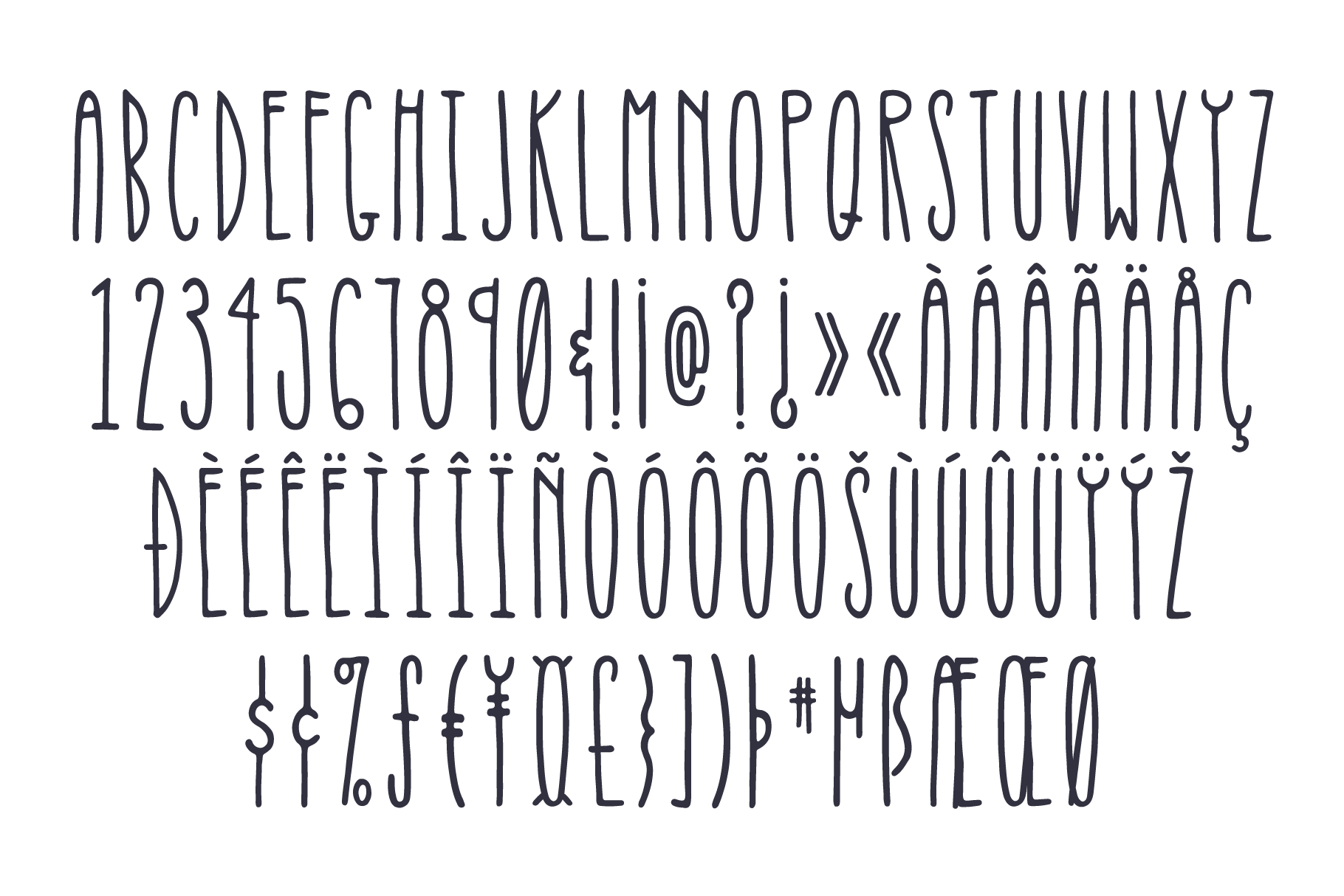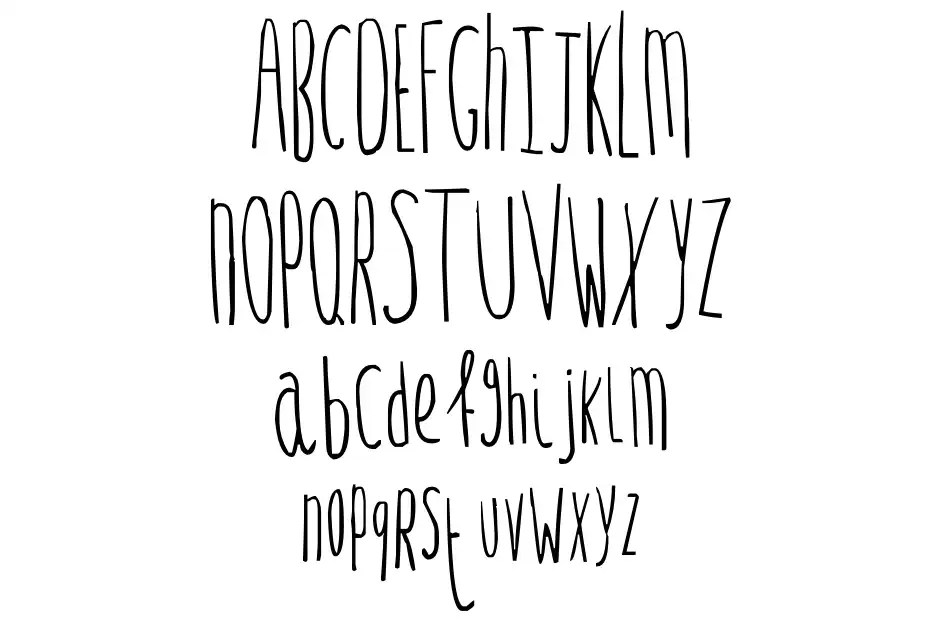
Famous Fonts Thin 2022. Click to find the best 406 free fonts in the thick style. This is a thin handwritten font with.
The font will even work well for designing logos as well. Font generator ( ͡° ͜ʖ ͡°) designers; Looking for thin script fonts?
Thinner Version Of The Common Bold Sans Font.
In font families, this style is often called light, extra light, or thin. This text font was made using instafonts.io. Let us dive in and find out the details.